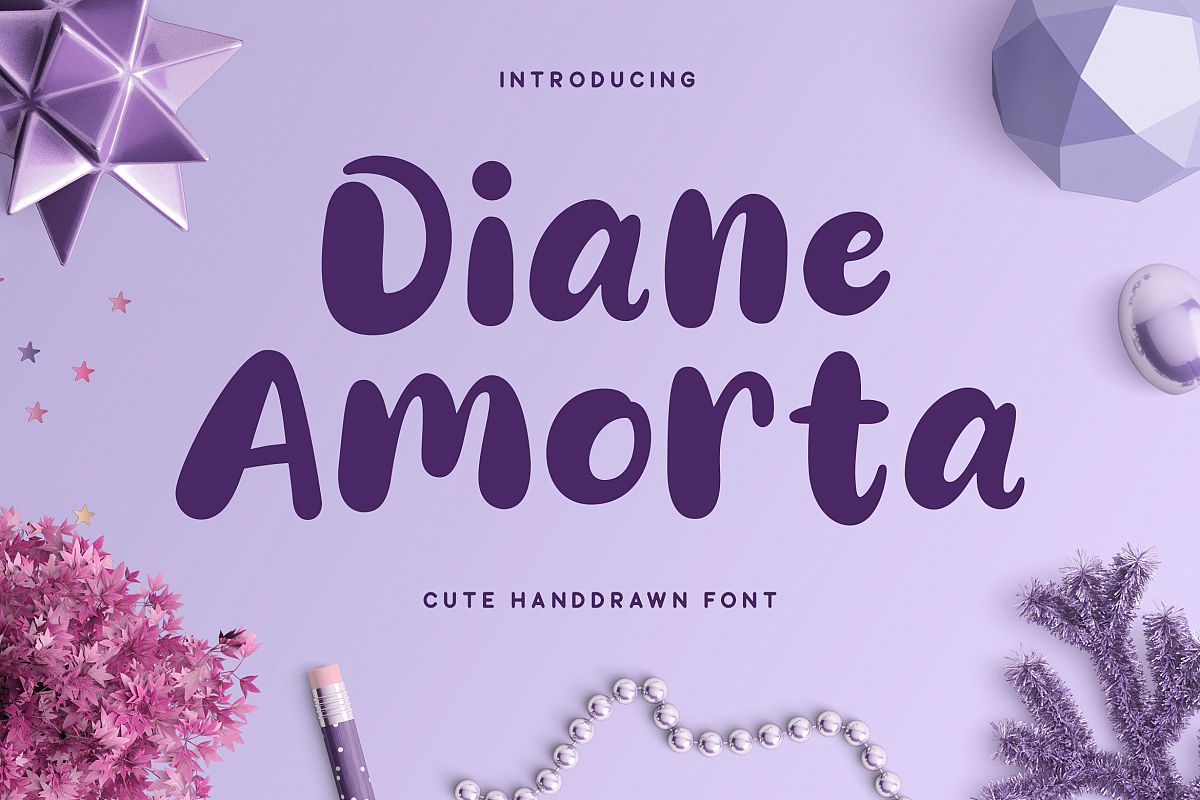
Diane Amorta - Cute Font
Diane Amorta
Diane Amorta is a cute handdrawn sans serif font crafted very carefully. Diane Amorta is perfect use for a logo for branding, typography design, product packaging, invitation, quotes, t-shirt design, label poster, special events and anything that need handwriting taste.